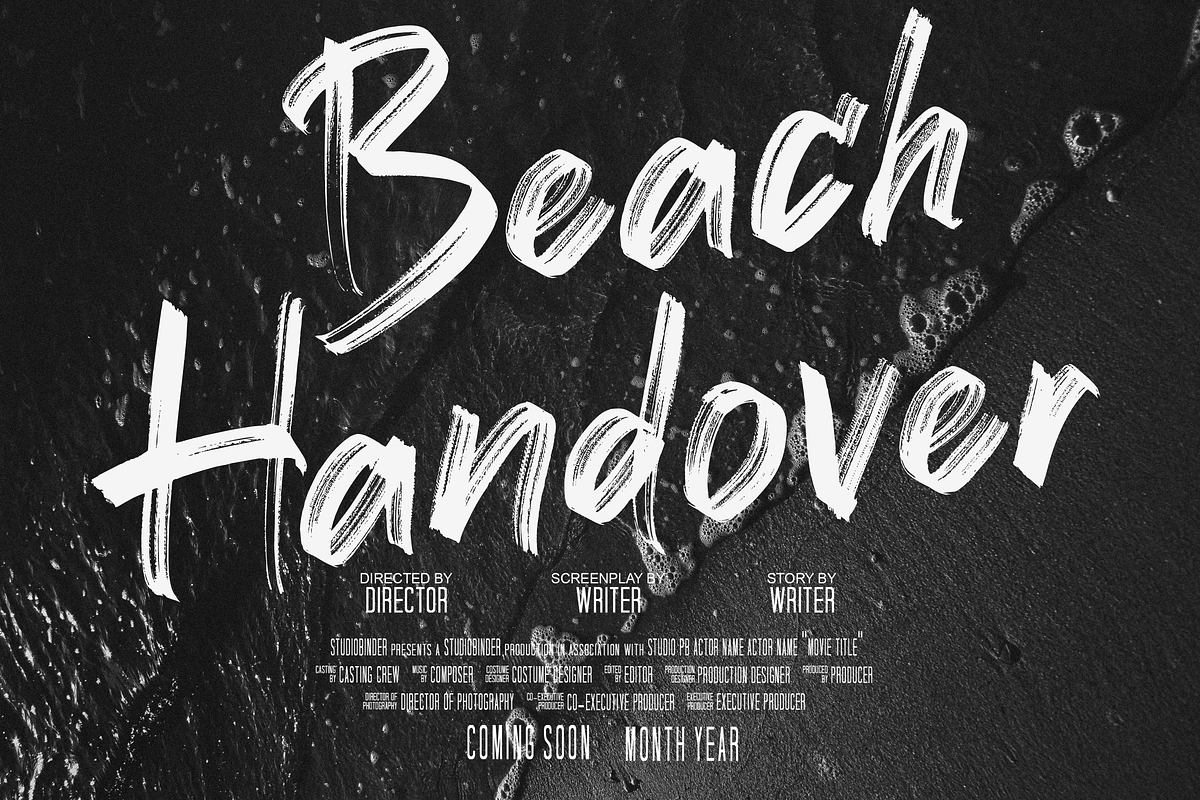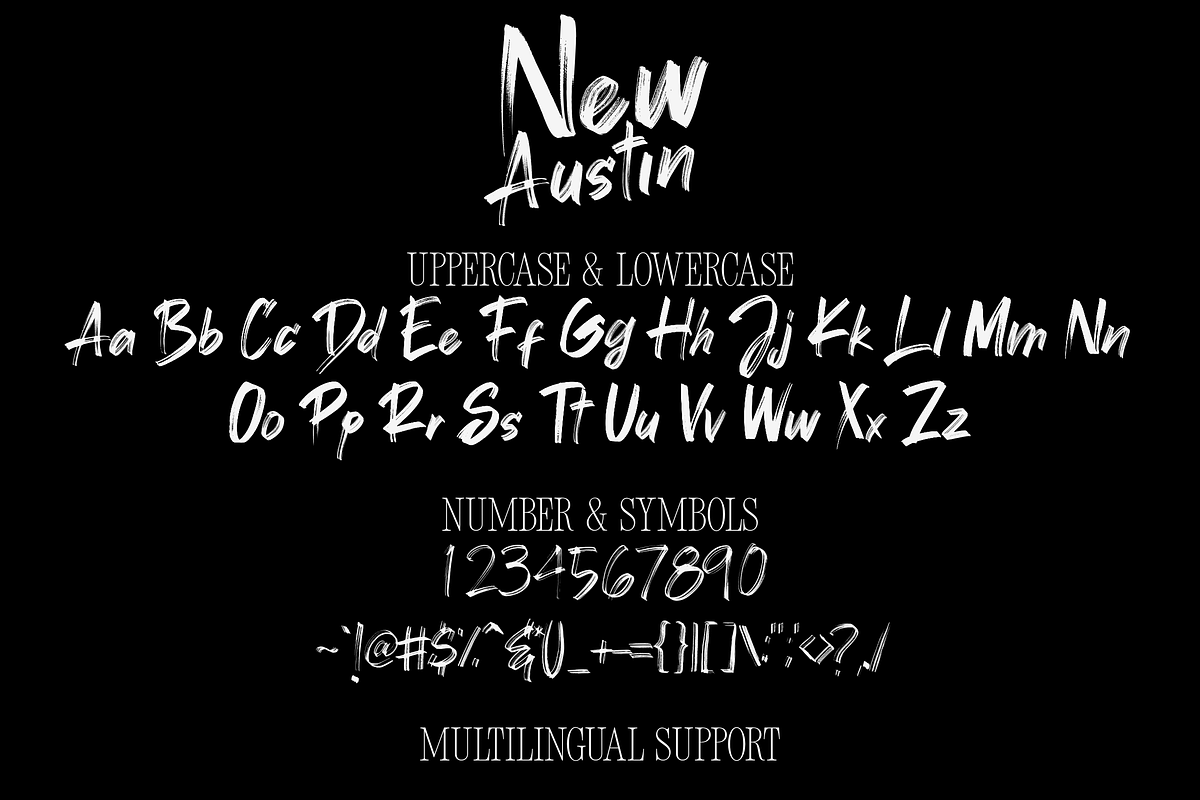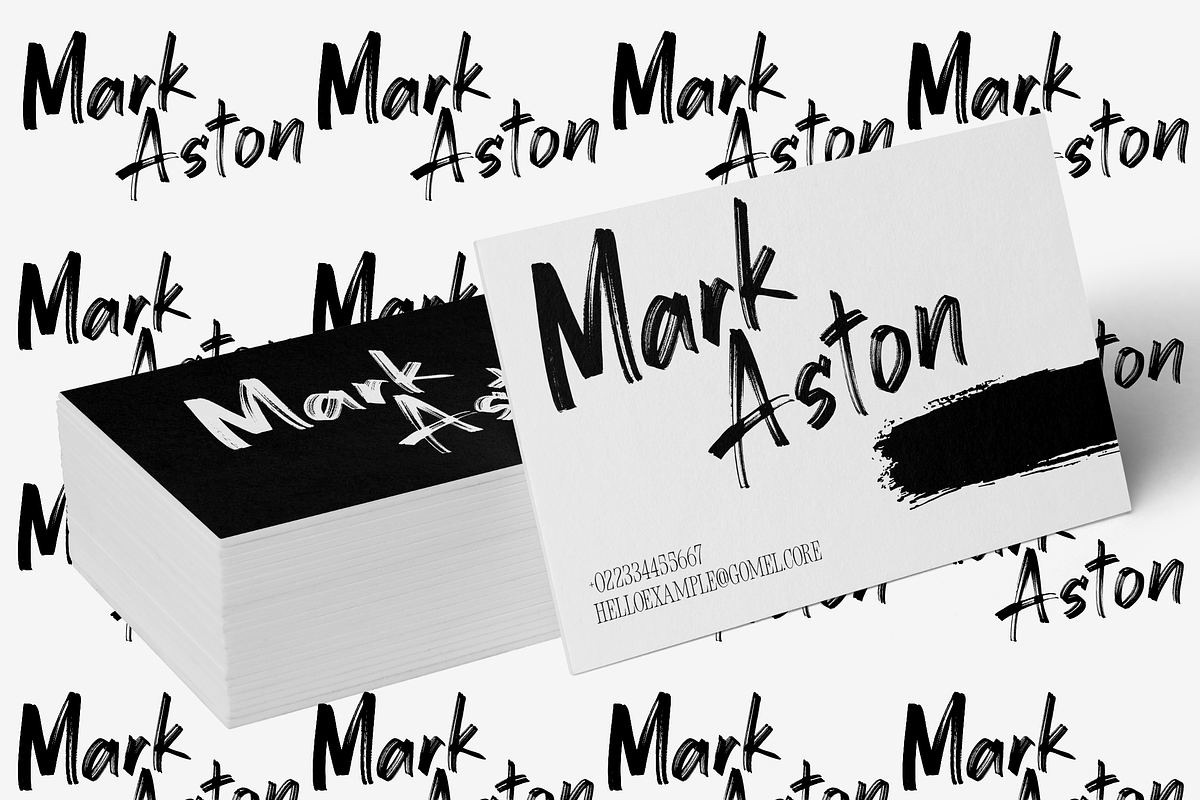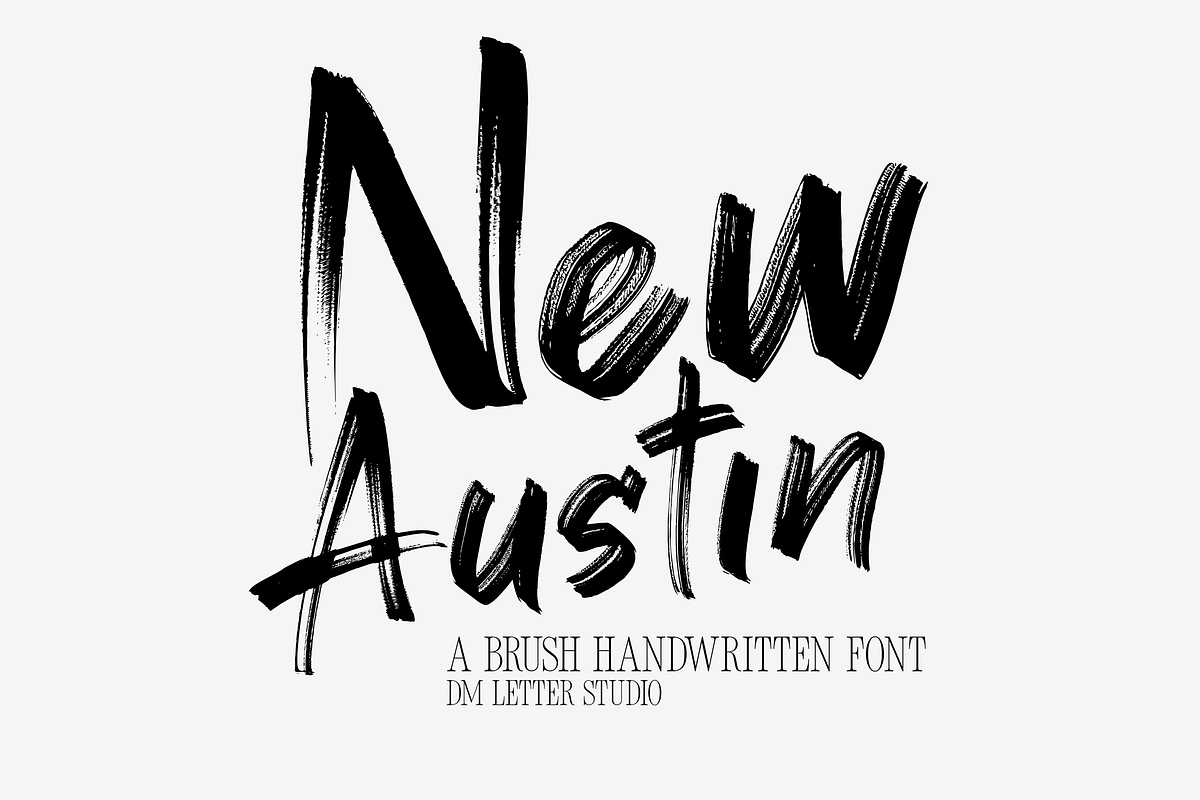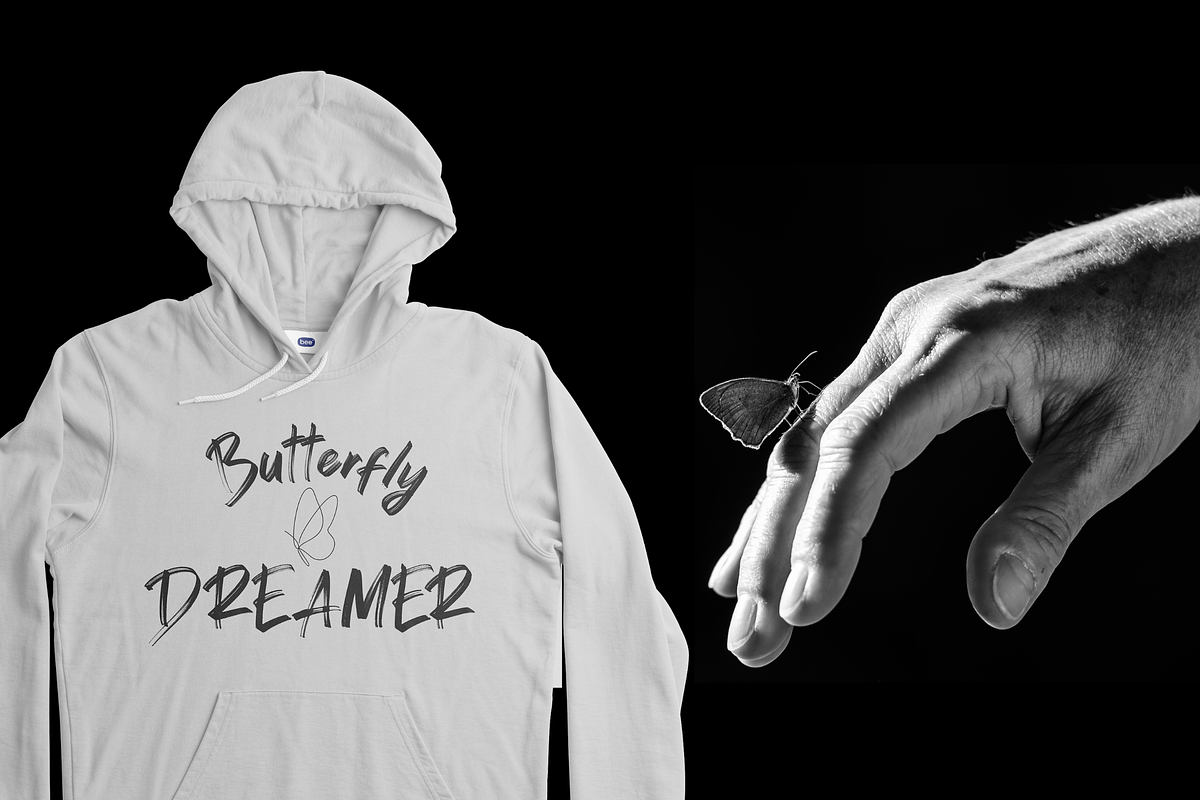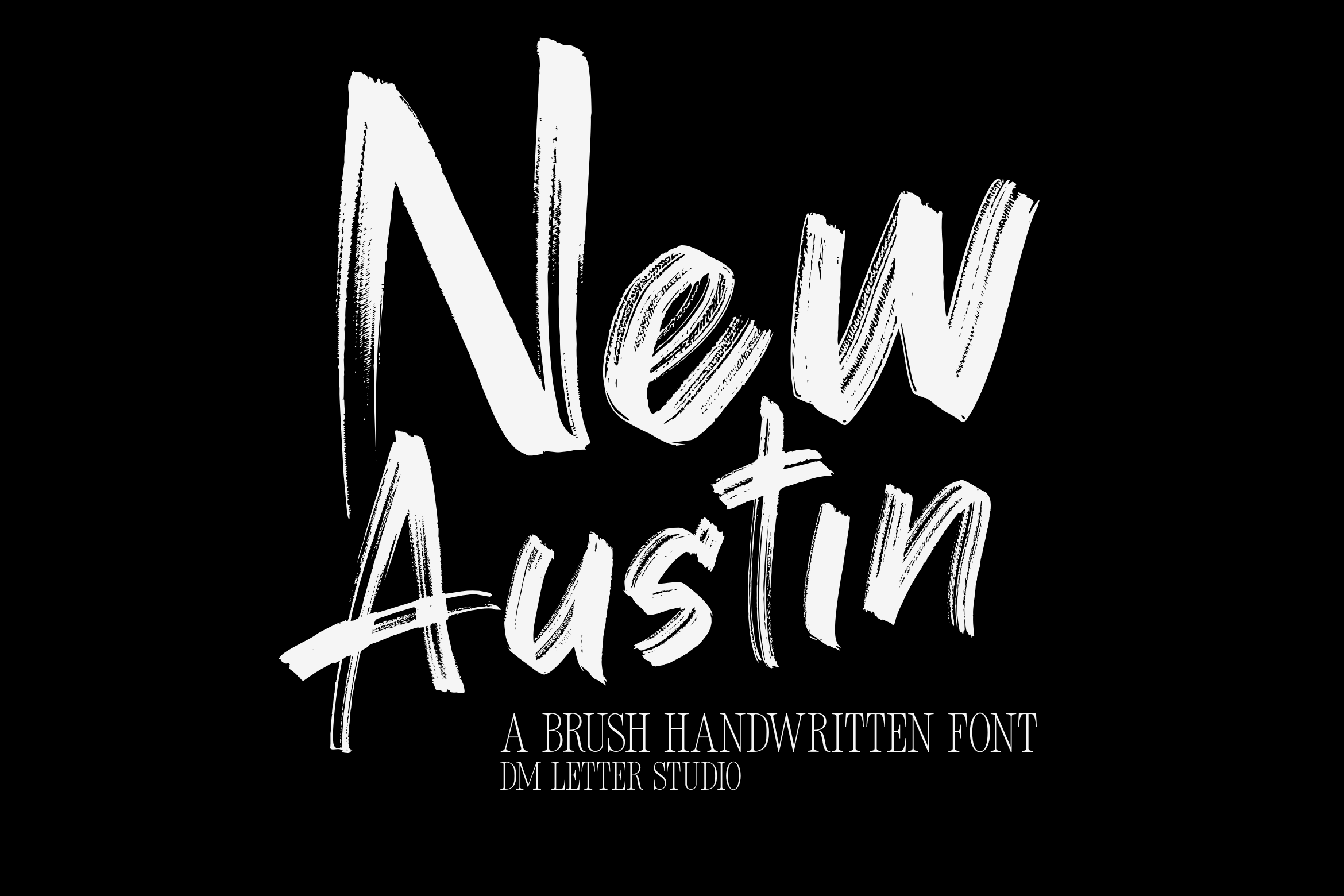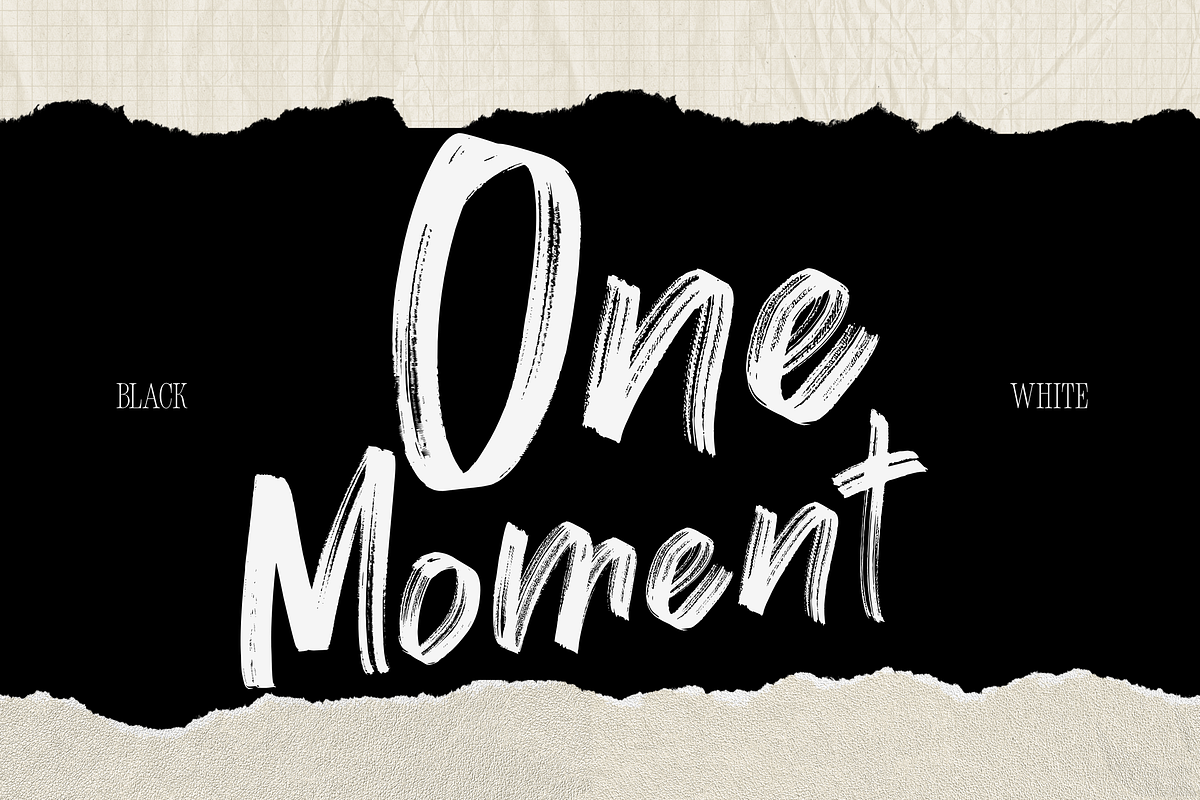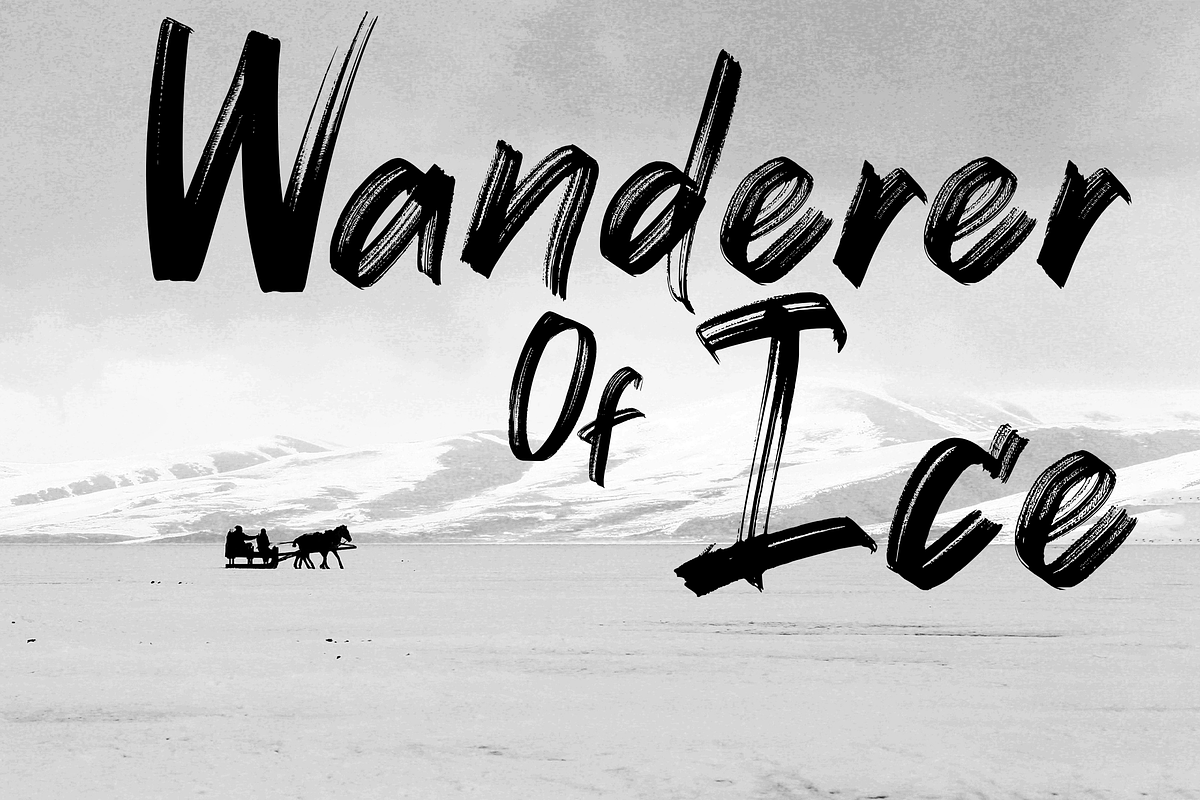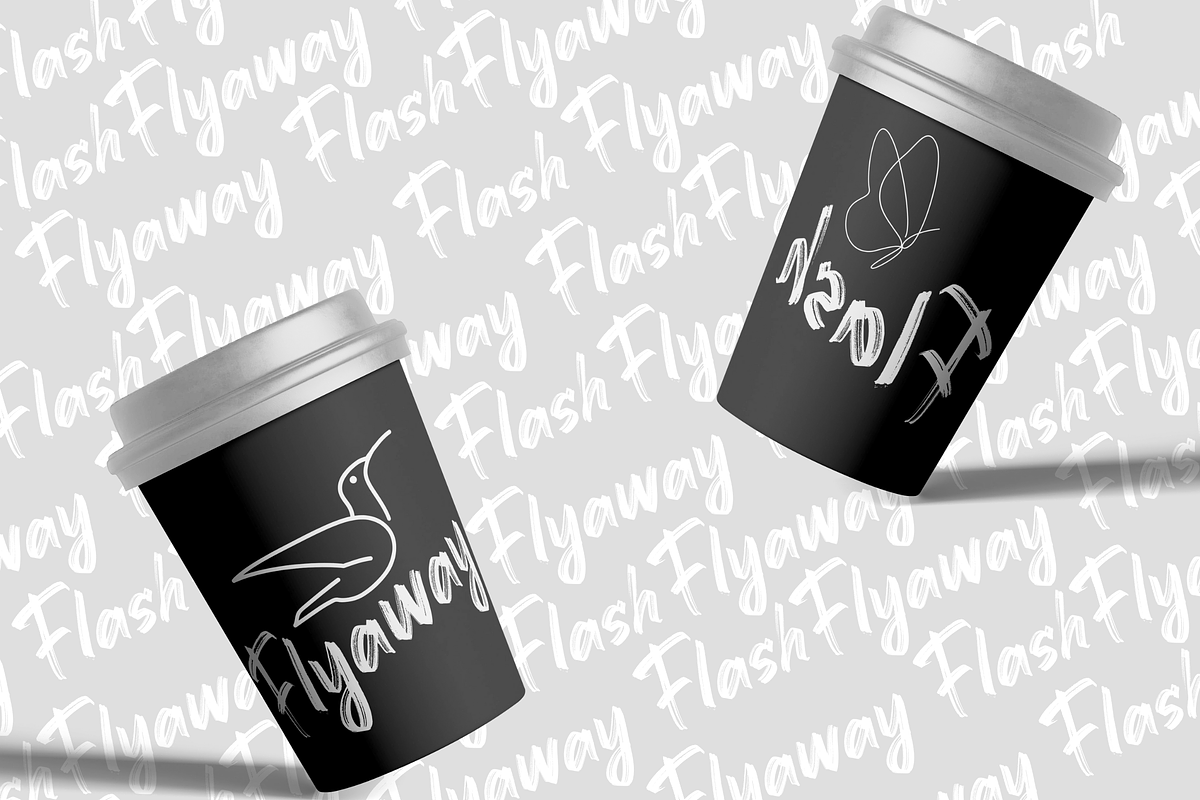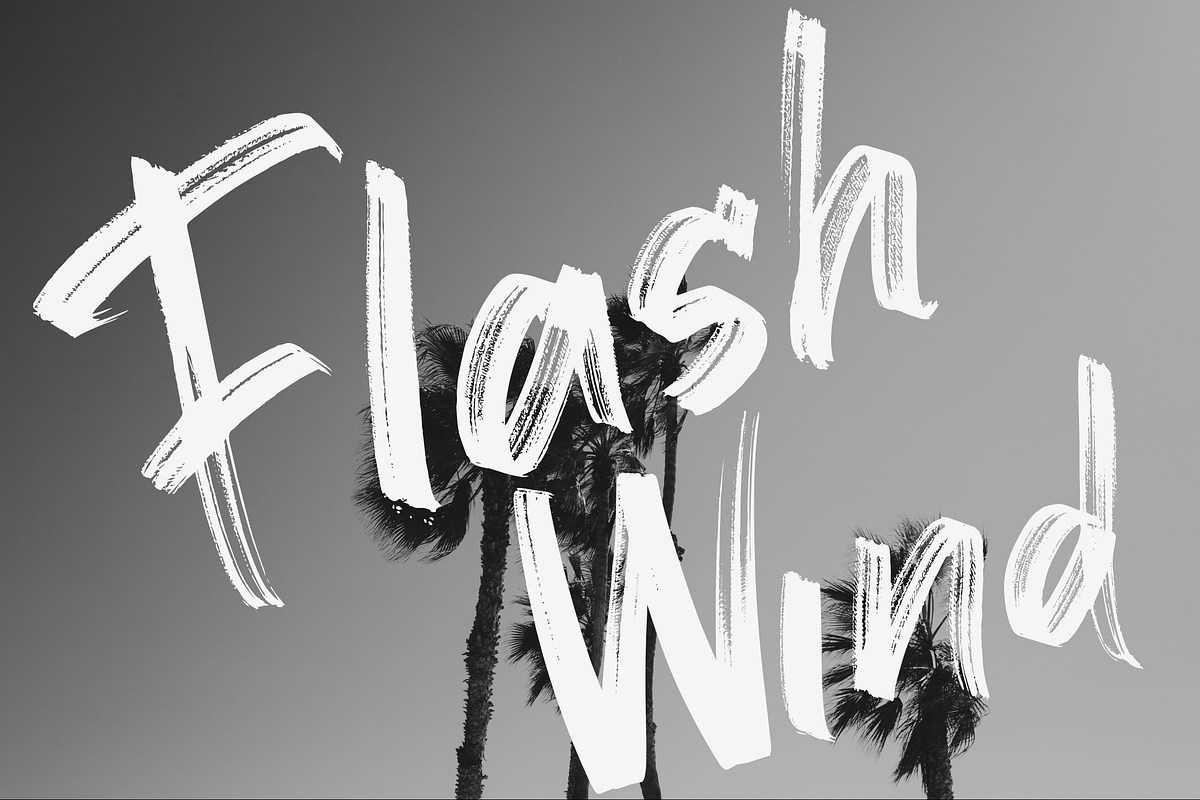
New Austin – Brush Handwritten Font
Make a statement with New Austin, a bold brush handwritten font designed to amplify your designs with raw energy and rebellious flair. Crafted by DM Letter Studio, this font combines the expressive freedom of hand-brushed strokes with a structured flow that makes it perfect for standout branding. Whether you're designing logos, product packaging, t-shirts, posters, or streetwear campaigns, New Austin delivers high-impact character with a modern twist.
Each letter in New Austin features rich texture and organic imperfections, mimicking the dynamic brush movements of traditional sign painting. The brush handwritten font style adds a rugged elegance that feels both vintage and modern, making it ideal for logos that demand presence and designs that crave authenticity.
With its stylish irregularity and bold personality, New Austin lets your words shout without compromising readability. It’s versatile enough to elevate luxury branding or bring streetwise flair to edgy graphics. This is not just another font—it’s a brush-lettered attitude ready to redefine your creative direction.
Full uppercase & lowercase characters
Numbers, punctuation & multilingual support
Natural brush texture with dry stroke details
Logo design
Apparel branding
Sign painting-inspired graphics
Modern packaging
Urban-themed posters & flyers
Editorial & album artwork